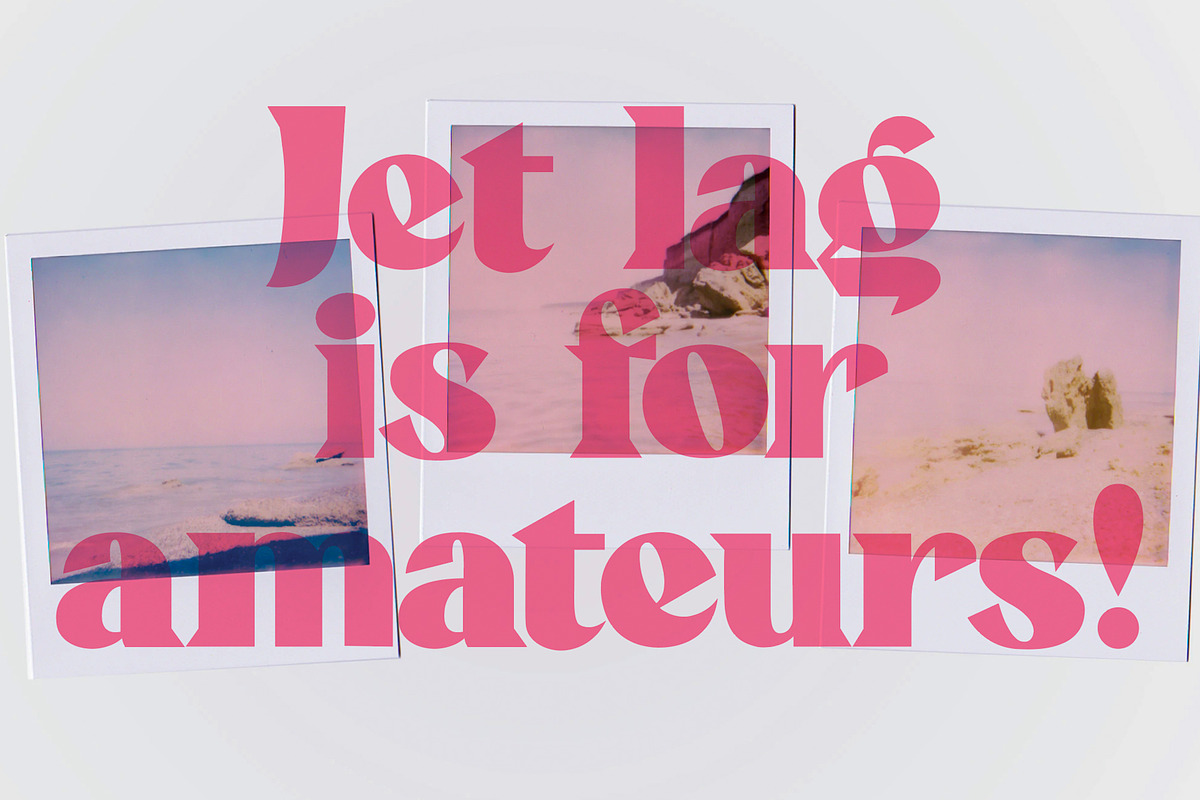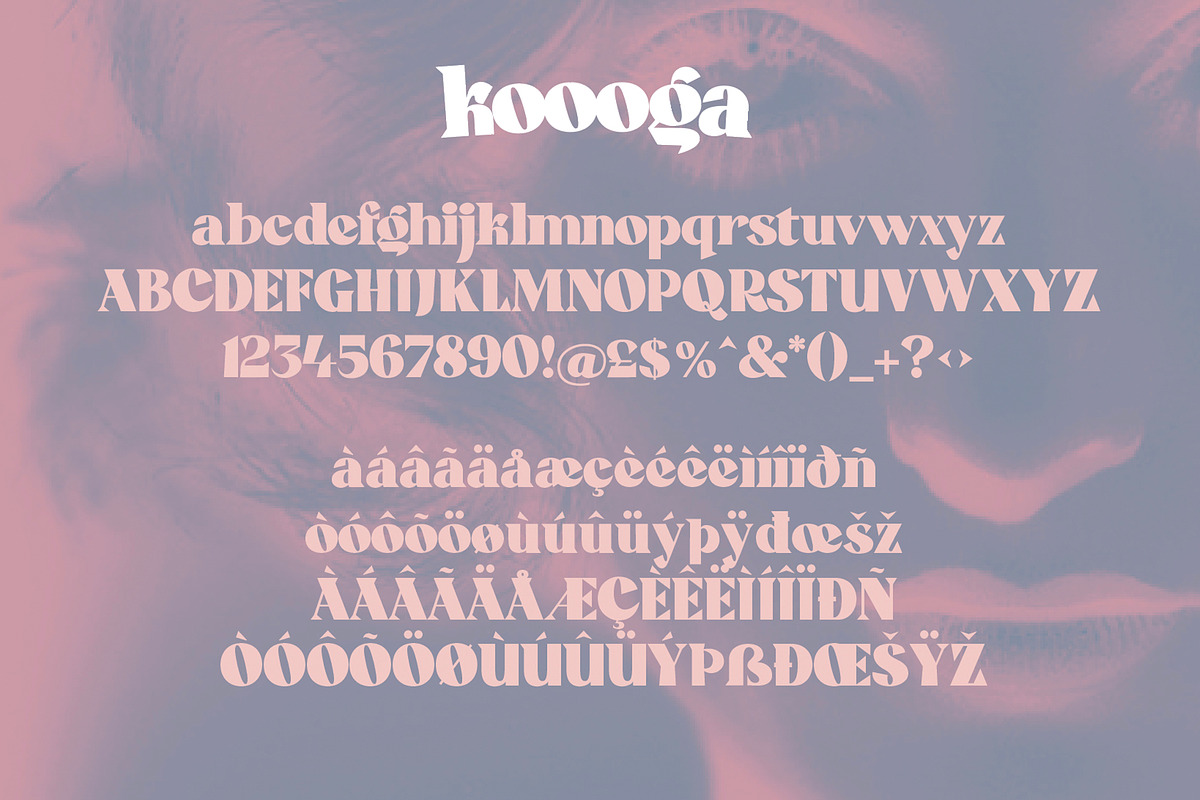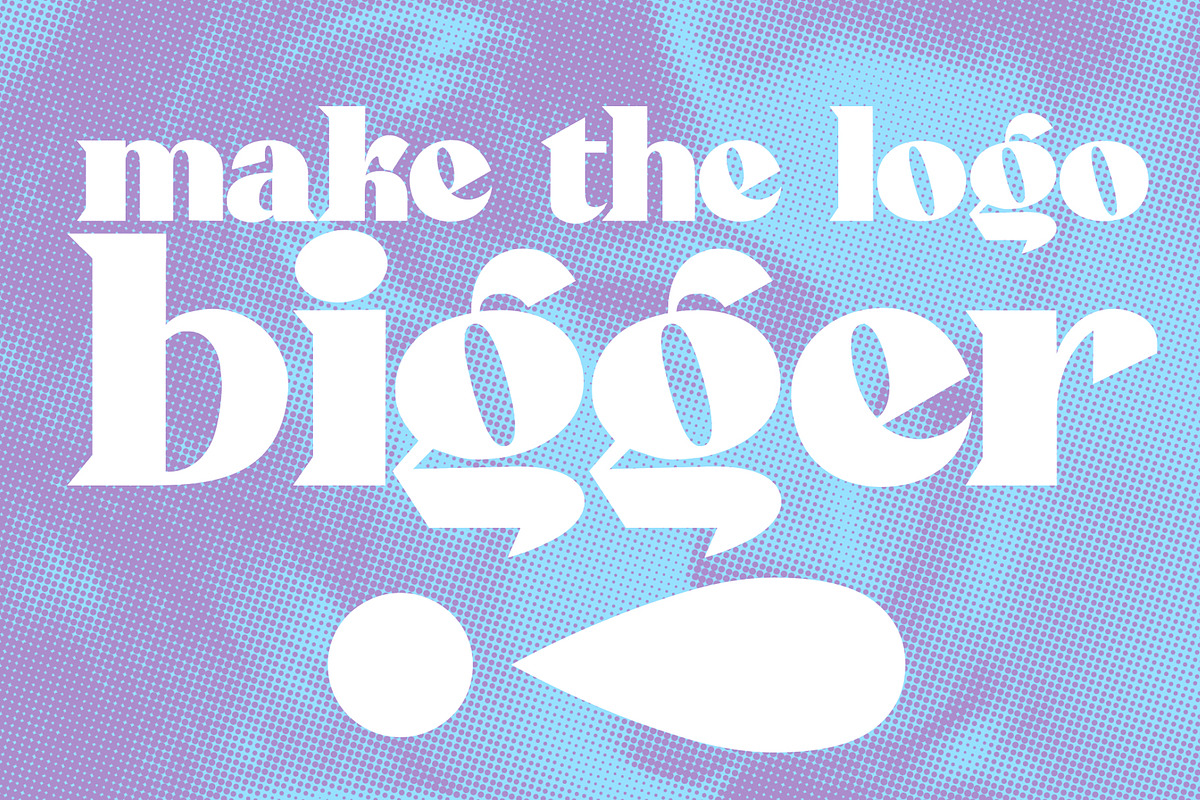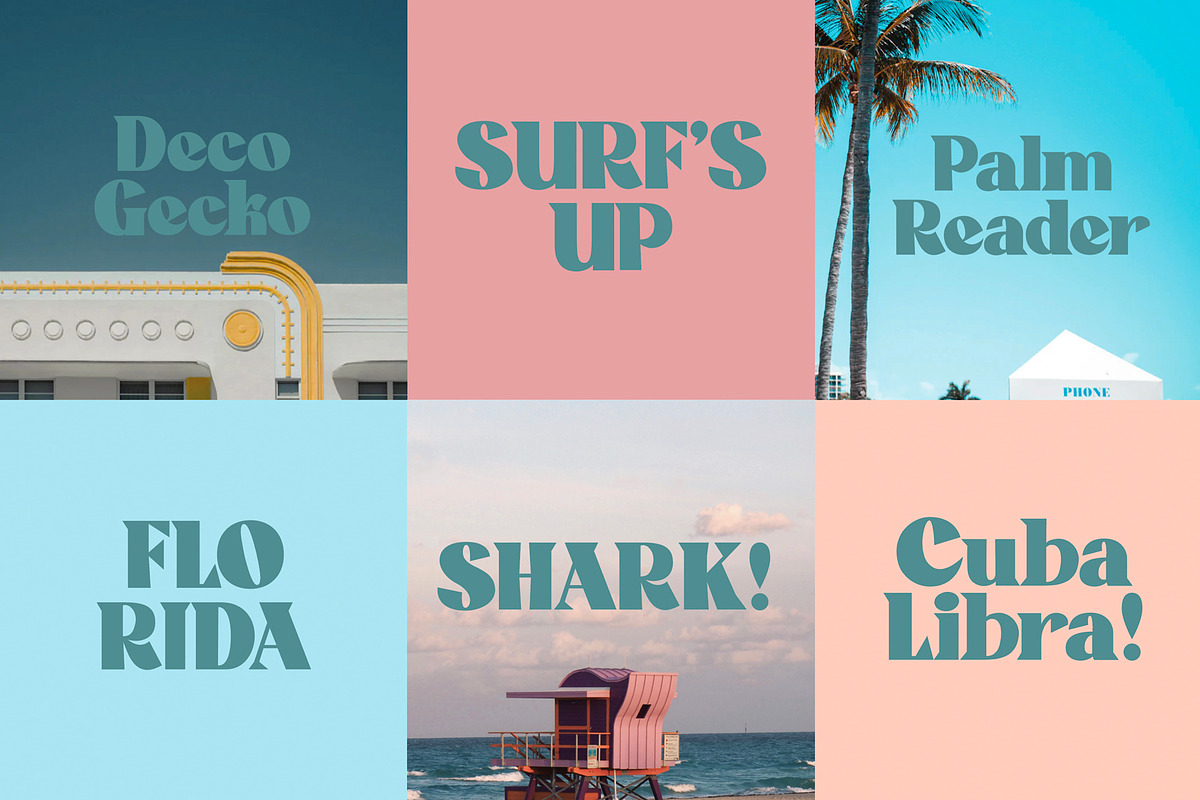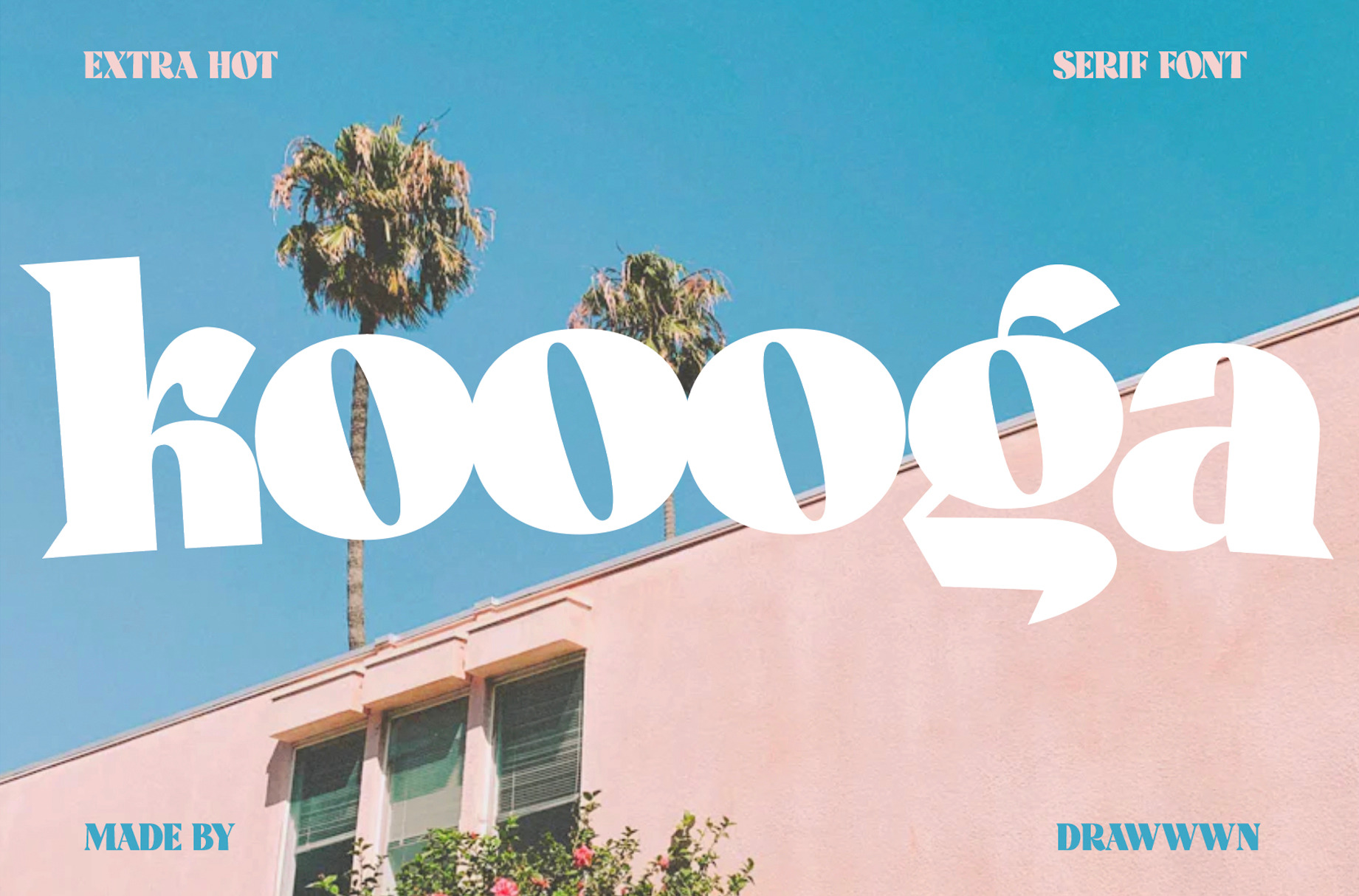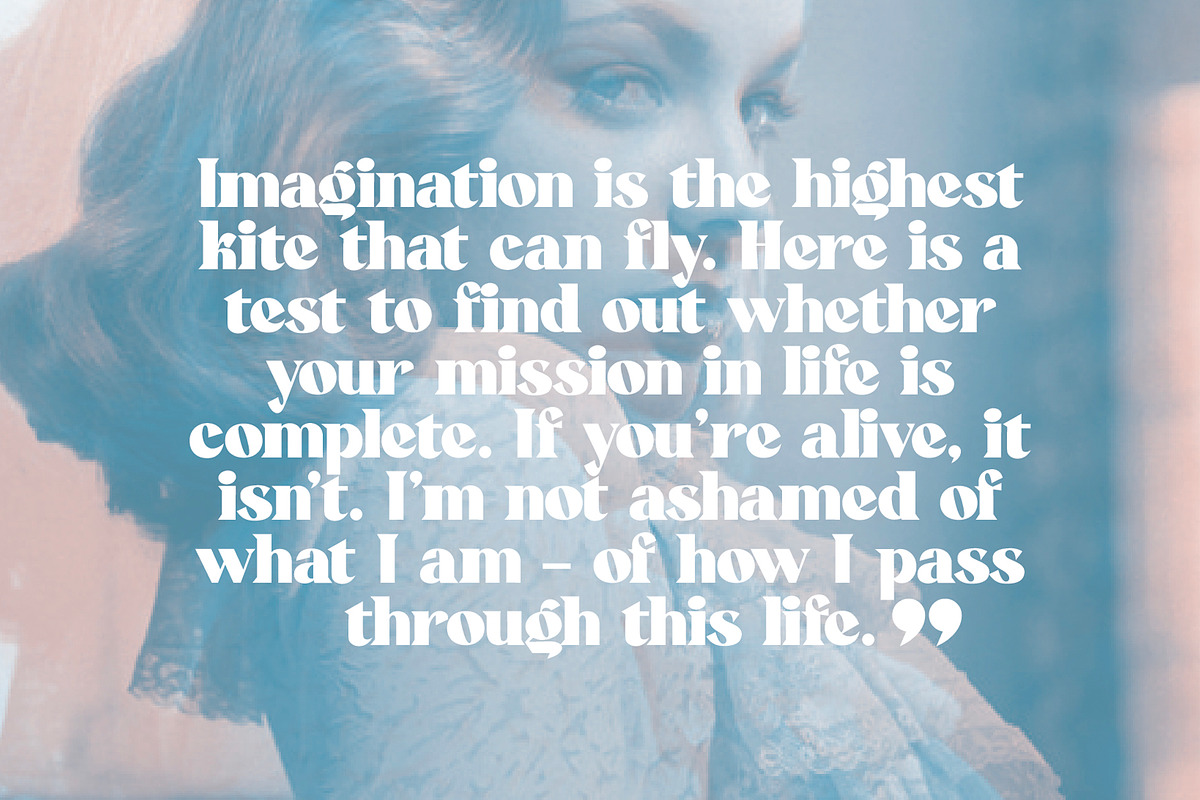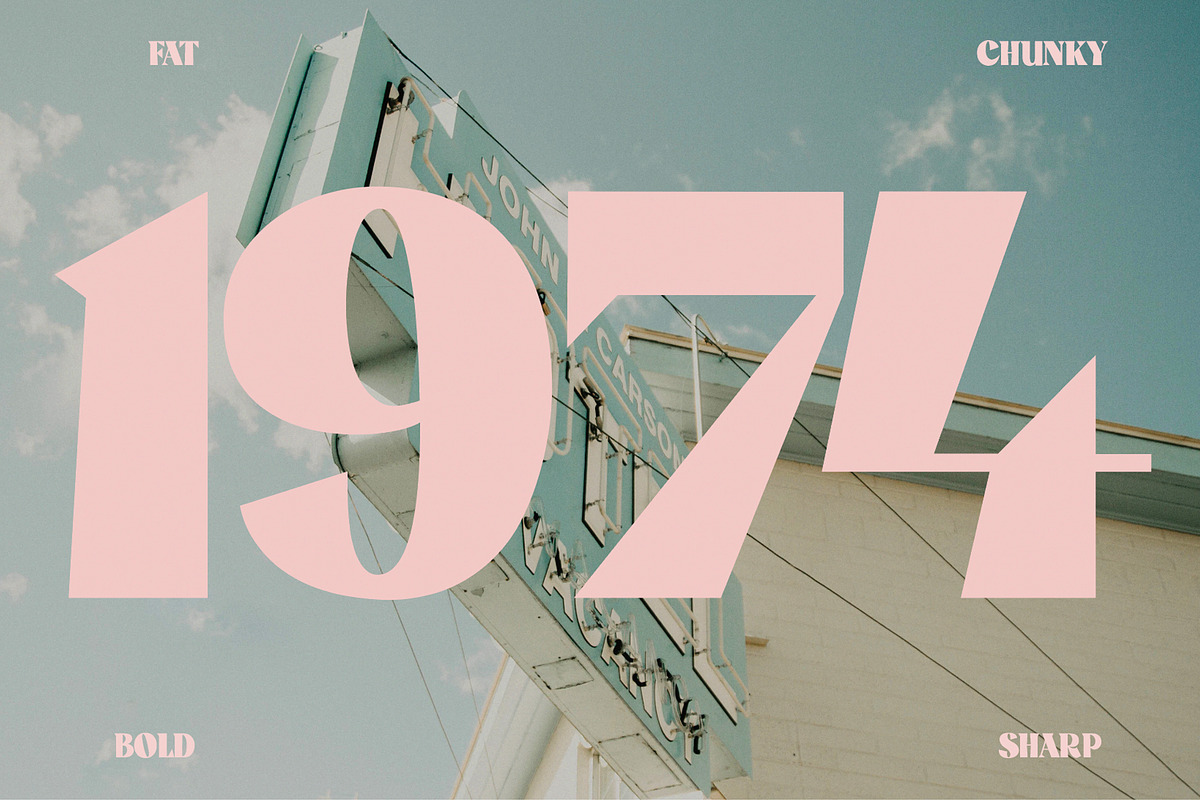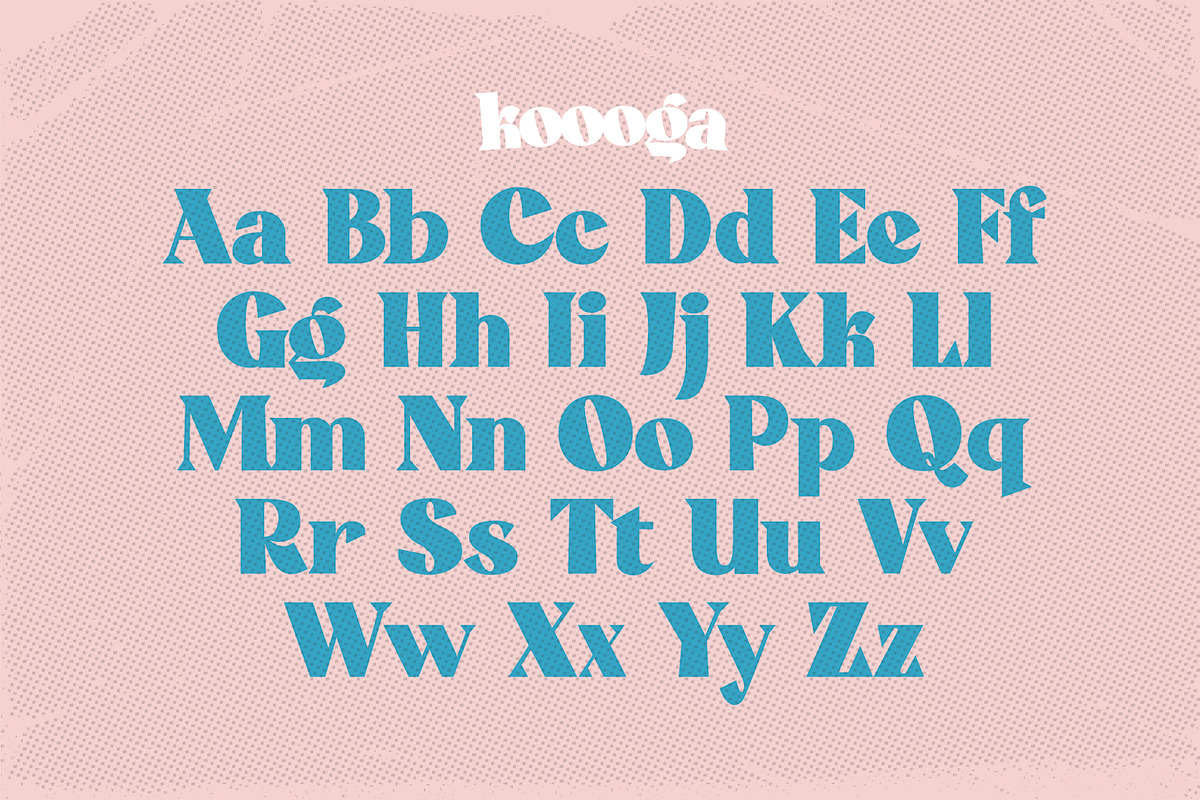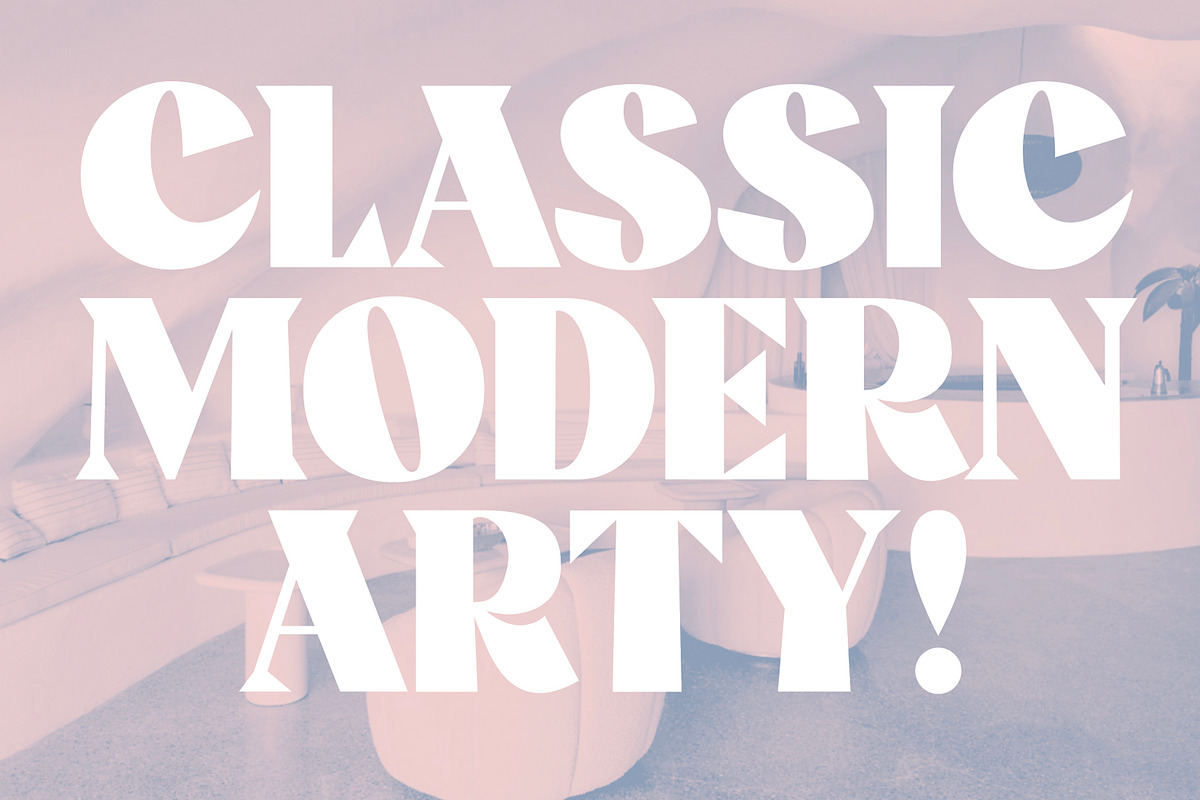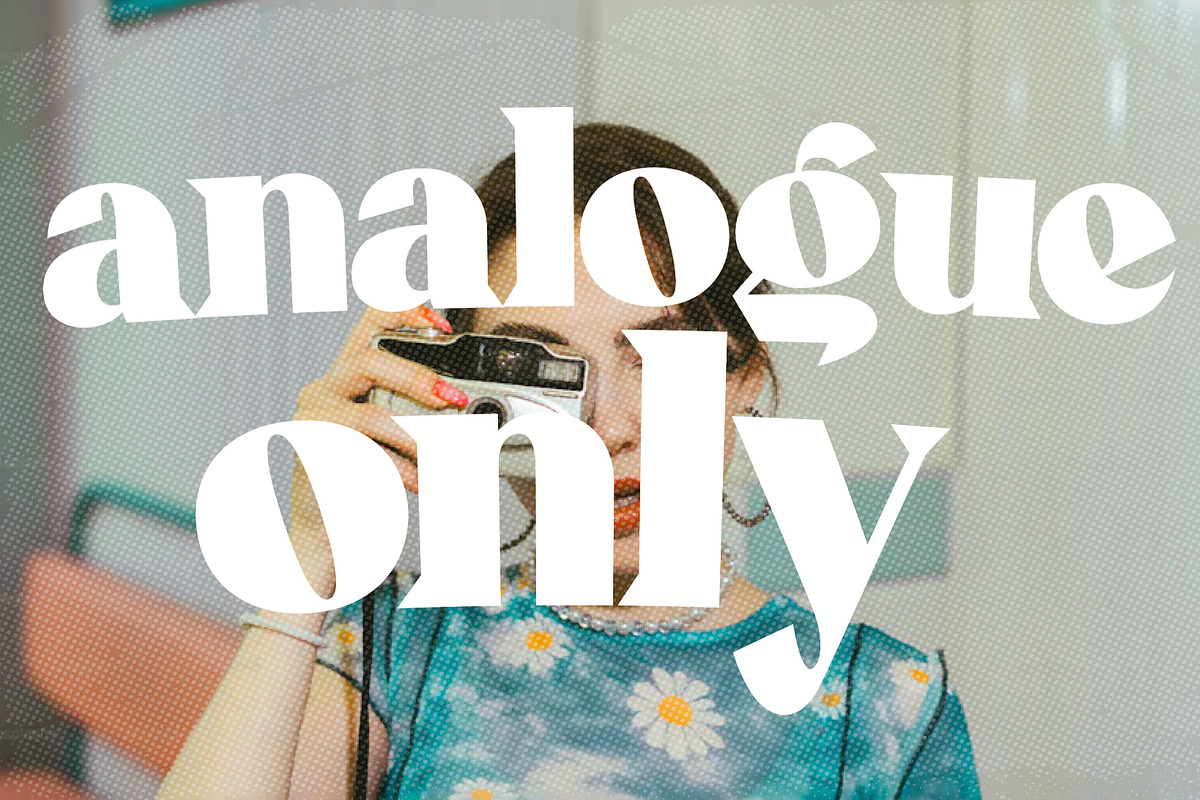
Koooga | Bold serif font
Koooga is a bold and cool new serif font from Drawwwn. It's perfect for branding projects, magazine layouts or funking up your socials. Koooga's chunky and sharp whilst keeping its feminine edge, so if you're feeling texty...it's time to unleash your inner Koooga!